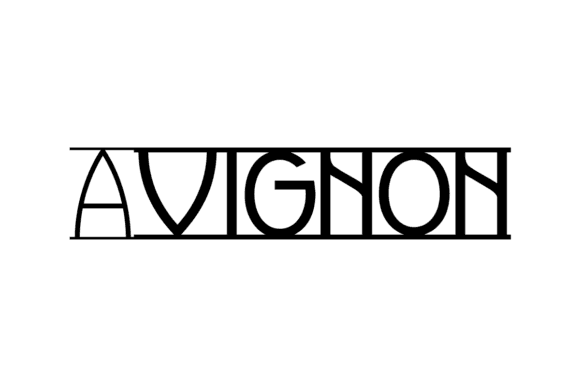
Avignon Font for Crafting, Logos and Print Projects
Avignon is a digital font designed for creative professionals and hobbyists who seek clarity and elegance in their visual projects. This font works beautifully in crafting, logo design, and print applications where legibility and style are equally important. Avignon stands out not only for its sophistication but also for its versatility in various design contexts. Alongside the Avignon font, designers often seek complementary styles, such as the baltic wave font for crafting, which adds a distinctive touch to projects. Whether for digital media or printed materials, these fonts harmoniously enhance the overall aesthetic, making them essential tools for creativity.
Its balanced weight and smooth letterforms make it a go-to choice for brand identities, custom packaging, invitations, and personalized graphics across both digital and physical platforms.
- Custom logos and business branding materials
- Personalized crafts and digital prints
- Branded packaging and promotional signage
- Wedding stationery and invitations
- Printable art, quotes, and decor
- Elegant and modern design style
- Perfect for both digital and printed crafts
- Easy to use across platforms and design tools
- Professional quality for branding and packaging
- Great readability in a variety of sizes
Q: Is Avignon suitable for printing logos and packaging?
A: Absolutely. It was created with professional output in mind, ideal for crisp prints and packaging layouts.
| Design Style | Elegant serif/sans hybrid | Playful handwritten | Bold brush script |
| Best Use | Logos, packaging, prints | Greeting cards | T-shirt graphics |
| Print-Ready Quality | High - professional grade | Medium - craft-focused | High - display-centric |